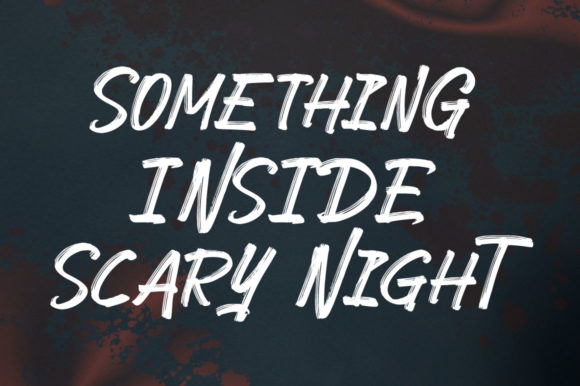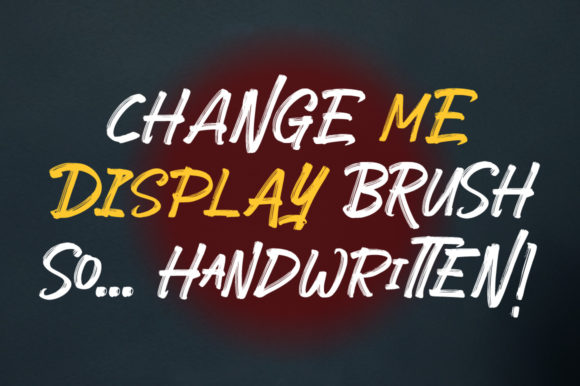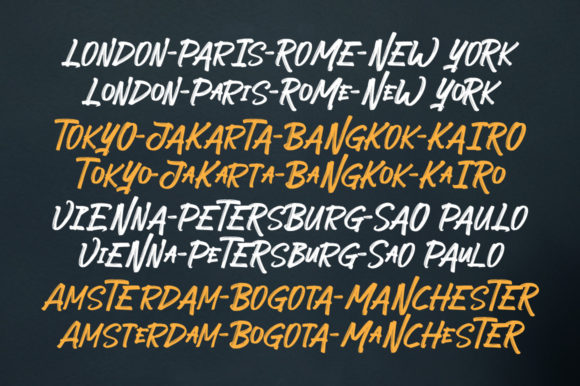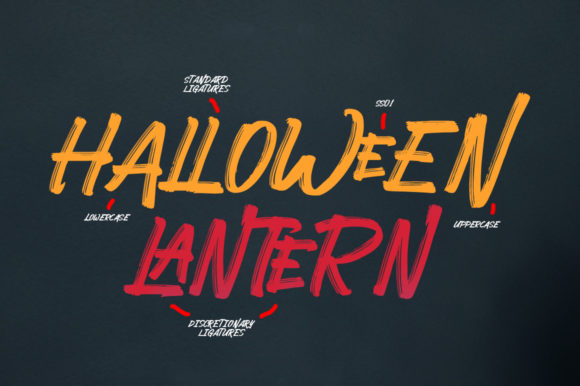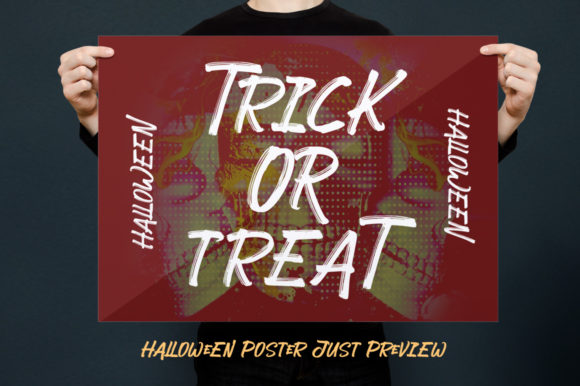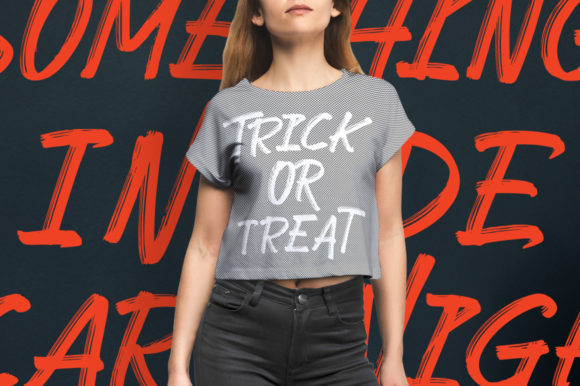
Introducing Button Grinder Font: The Ultimate Display Font for Stunning Designs
Are you tired of using the same old fonts for your designs? Look no further! Button Grinder Font is a game-changer in the world of typography. This unique and interesting display font is here to take your designs to the next level. With its incredibly stylish look and versatility, Button Grinder Font is perfect for a wide range of design projects.
What Makes Button Grinder Font So Special?
Button Grinder Font is not just another font – it’s a statement piece. Its distinctive style is sure to grab attention and leave a lasting impression. Whether you’re working on a logo, poster, or social media graphic, this font is sure to elevate your design. The best part? It’s incredibly versatile, making it suitable for a wide pool of designs.
The Benefits of Using Button Grinder Font
- Unique and Eye-Catching: Button Grinder Font is unlike any other font out there. Its unique style is sure to make your designs stand out from the crowd.
- Incredibly Versatile: Whether you’re working on a formal or informal design, Button Grinder Font is sure to fit right in.
- PUA Encoded: This font is PUA encoded, making it easy to access all of the glyphs and swashes. No more tedious font editing – with Button Grinder Font, you can focus on creating stunning designs.
How to Use Button Grinder Font in Your Designs
So, how can you use Button Grinder Font to create spectacular designs? Here are a few ideas to get you started:
- Logos: Use Button Grinder Font to create a unique and memorable logo for your brand.
- Posters: Add some drama and flair to your posters with Button Grinder Font.
- Social Media Graphics: Take your social media graphics to the next level with this eye-catching font.
- Packaging: Use Button Grinder Font to add a touch of personality to your product packaging.
Tips and Tricks for Getting the Most Out of Button Grinder Font
To really make Button Grinder Font shine in your designs, here are a few tips and tricks to keep in mind:
- Experiment with Different Sizes: Button Grinder Font looks great in a variety of sizes, so don’t be afraid to experiment and find the perfect size for your design.
- Play with Color: This font looks great in a range of colors, so try out different color combinations to find the one that works best for your design.
- Mix and Match: Don’t be afraid to mix and match Button Grinder Font with other fonts to create a unique and interesting look.